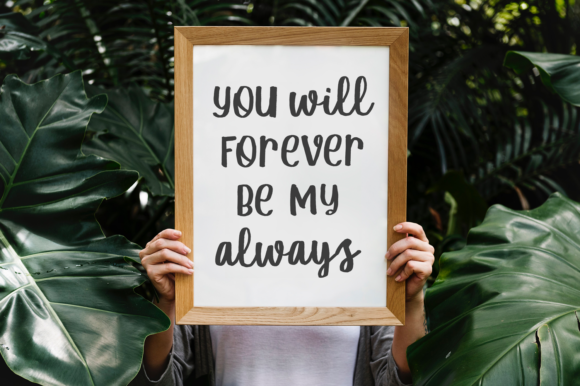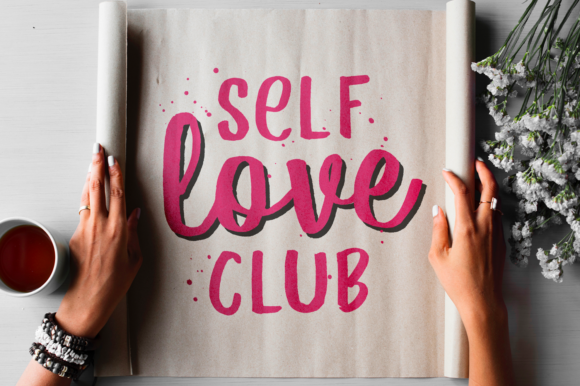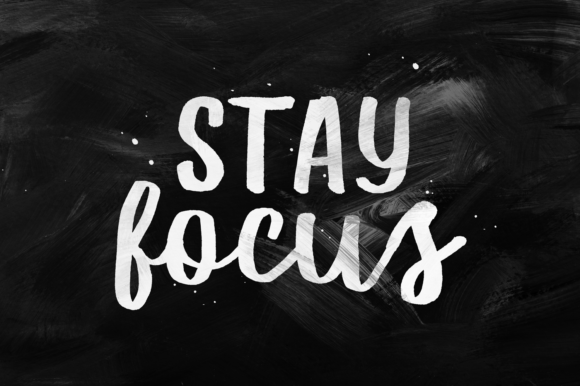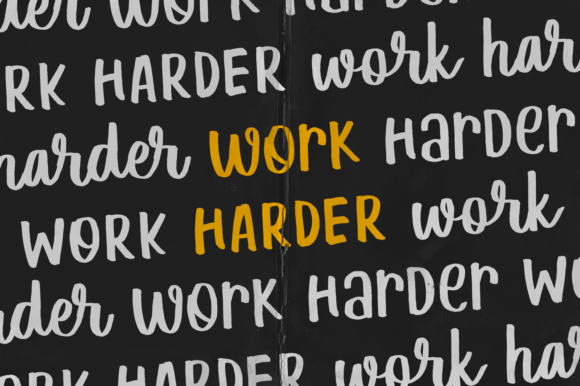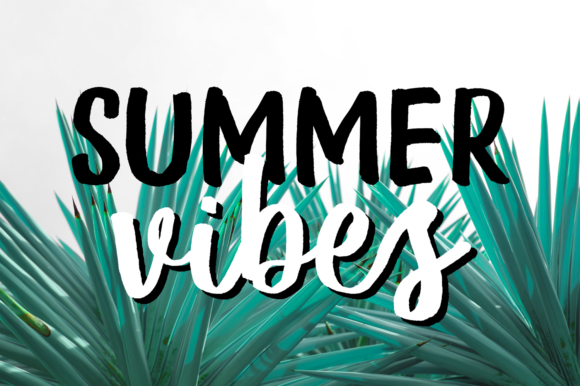
Ahoy Amigo Font: Add a Cute Spark to Your Design Projects
Are you looking for a font that can add a touch of personality and whimsy to your design projects? Look no further than the Ahoy Amigo font! This beautiful and friendly handwritten font is sure to make your designs stand out with its unique feel and lovely impact.
What is Ahoy Amigo Font?
Ahoy Amigo is a carefully crafted handwritten font that is designed to bring a sense of fun and playfulness to your designs. Its unique and distinctive style makes it perfect for a wide range of projects, from creative crafts to digital designs. Whether you’re a designer, crafter, or DIY enthusiast, Ahoy Amigo is sure to become your go-to font for adding a personal touch to your work.
Key Features of Ahoy Amigo Font
- Unique and Handwritten Style: Ahoy Amigo has a distinctive handwritten style that sets it apart from other fonts. Its unique feel and lovely impact make it perfect for adding a personal touch to your designs.
- Cute and Playful: This font is designed to add a touch of whimsy and playfulness to your designs. Its cute and friendly style makes it perfect for projects that require a lighthearted and approachable feel.
- Highly Versatile: Ahoy Amigo is a highly versatile font that can be used for a wide range of projects, from digital designs to creative crafts.
- Easily Readable: Despite its unique style, Ahoy Amigo is highly readable, making it perfect for use in both digital and print designs.
Uses of Ahoy Amigo Font
Ahoy Amigo is a highly versatile font that can be used for a wide range of projects, including:
- Digital Designs: Use Ahoy Amigo to add a personal touch to your digital designs, such as social media graphics, blog posts, and website headers.
- Creative Crafts: Ahoy Amigo is perfect for use in creative crafts, such as card making, scrapbooking, and DIY projects.
- Print Designs: Use Ahoy Amigo to add a touch of personality to your print designs, such as brochures, flyers, and posters.
- Branding and Packaging: Ahoy Amigo can be used to create unique and eye-catching branding and packaging designs that will help your products stand out.
Why Choose Ahoy Amigo Font?
There are many reasons why Ahoy Amigo font is a great choice for your design projects. Here are just a few:
- Unique Style: Ahoy Amigo has a unique and distinctive style that will help your designs stand out from the crowd.
- Ease of Use: This font is highly readable and easy to use, making it perfect for designers of all skill levels.
- Highly Versatile: Ahoy Amigo can be used for a wide range of projects, from digital designs to creative crafts.
- Cute and Playful: This font is designed to add a touch of whimsy and playfulness to your designs, making it perfect for projects that require a lighthearted and approachable feel.
In conclusion, Ahoy Amigo font is a beautiful and friendly handwritten font that is sure to add a cute spark to any design project. Its unique feel and lovely impact make it perfect for a wide range of projects, from digital designs to creative crafts. With its highly versatile style, ease of use, and cute and playful vibe, Ahoy Amigo is a great choice for designers and crafters looking to add a personal touch to their work.